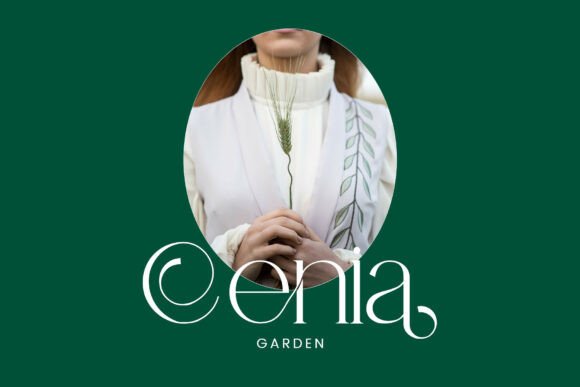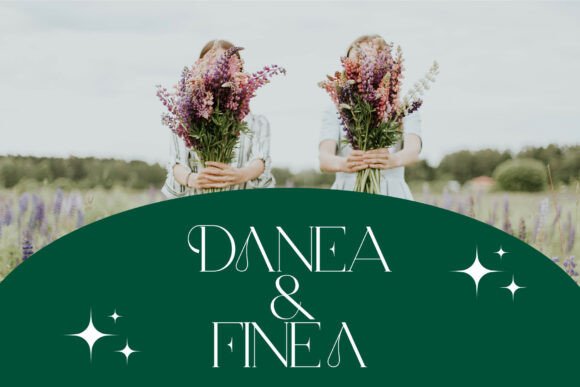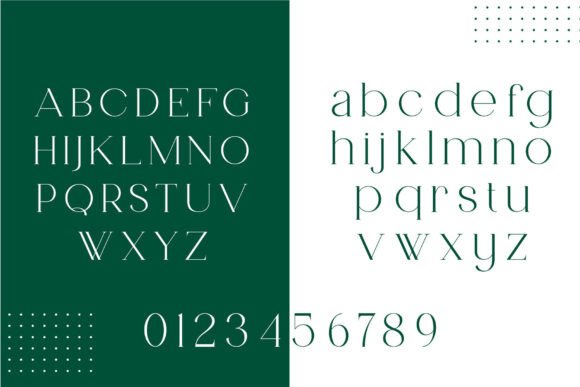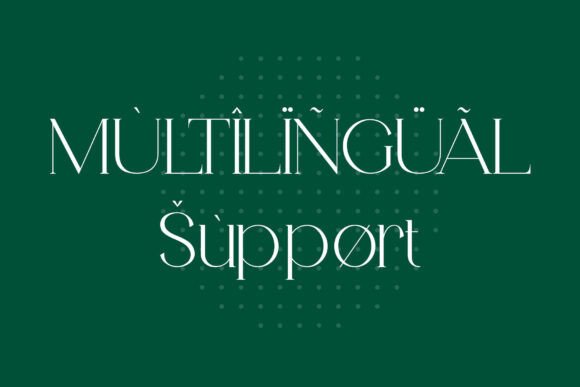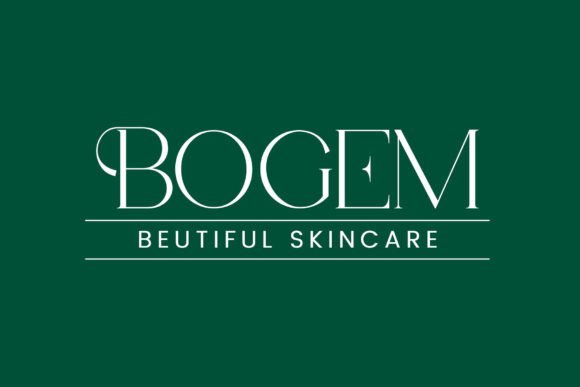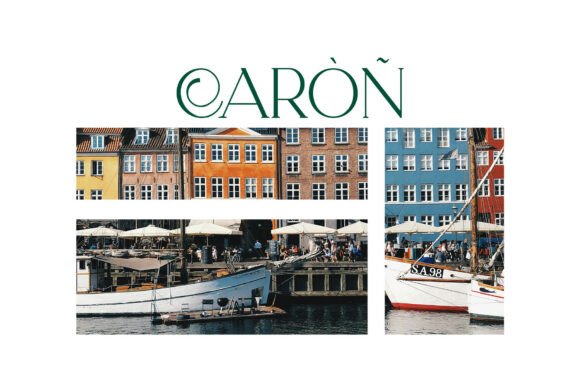
Unlocking the Elegance of Cadera Font: A Modern Minimalist Serif
I still remember the struggle of working on a luxury fashion magazine cover, determined to find the perfect typeface that would elevate the design without overpowering the stunning photography. The challenge was real – I needed a font that exuded sophistication, yet was modern and attention-grabbing. That’s when I stumbled upon the Cadera font, a game-changer in the world of high-end editorial design.
What Makes Cadera Font Stand Out?
Cadera font masterfully bridges the gap between classic Roman proportions and avant-garde modernism. Its dramatic contrast, featuring razor-thin hairlines paired with bold, authoritative stems, demands attention on any page or screen. What sets Cadera apart is its unique approach to “minimalism with a twist”—it strips away unnecessary clutter while introducing breathtaking, sweeping curves and ligatures that feel more like liquid art than static characters.
What I Love About Cadera Font ✨
- ✅ Elegant and sophisticated design, perfect for luxury branding
- ✅ Dramatic contrast between hairlines and stems for added visual interest
- ✅ Unique approach to minimalism with beautiful curves and ligatures
- ✅ Highly versatile, suitable for various design projects, from fashion magazines to architectural firm identities
- ⚠️ Some users may find the font’s dramatic contrast challenging to read in smaller sizes
The Designer Inspiration Behind Cadera Font
Cadera font was inspired by the works of renowned designers who sought to push the boundaries of traditional typography. By combining classic Roman proportions with modernist elements, the designer aimed to create a typeface that would be both elegant and avant-garde. The result is a font that embodies the perfect blend of sophistication and innovation.
Q: What is Cadera font best suited for?
A: Cadera font is ideal for luxury branding, high-end editorial design, fashion magazines, and architectural firm identities.
Q: Is Cadera font suitable for body text?
A: While Cadera font is stunning for headlines and titles, its dramatic contrast may make it challenging to read in smaller sizes for body text. Consider using a complementary font for body text to ensure optimal readability.